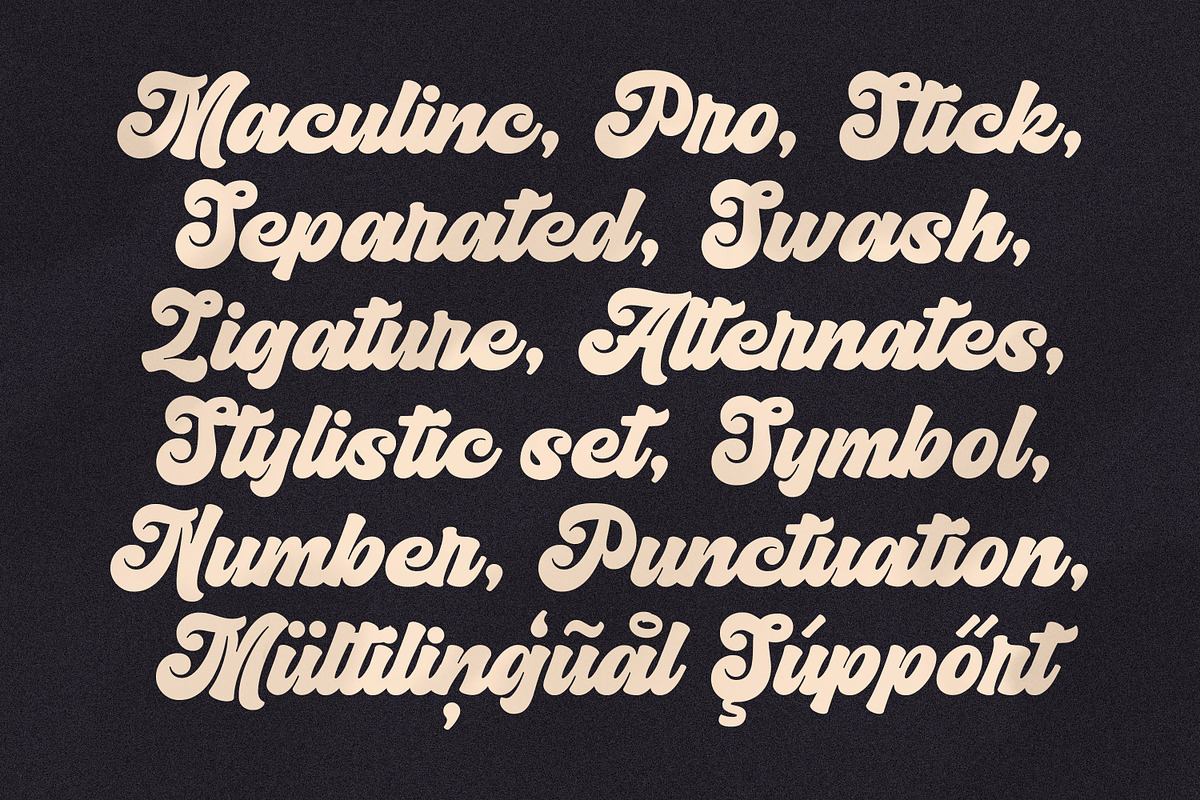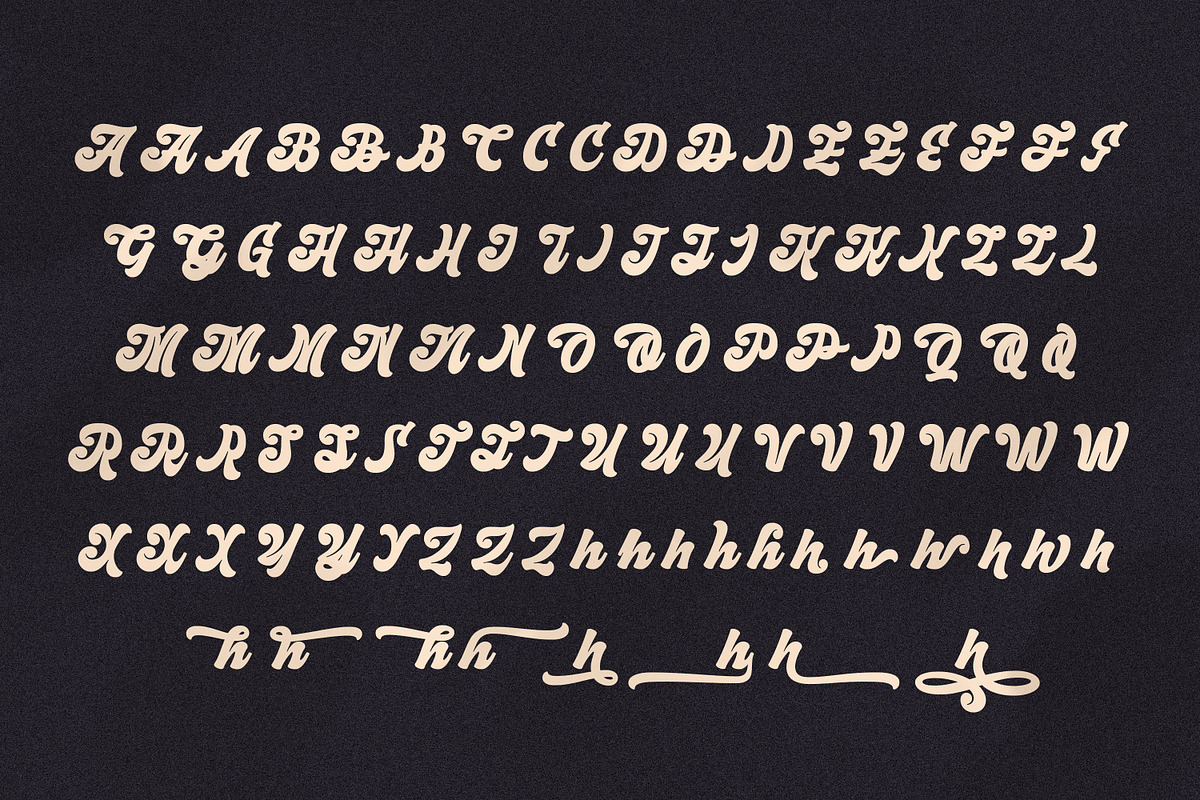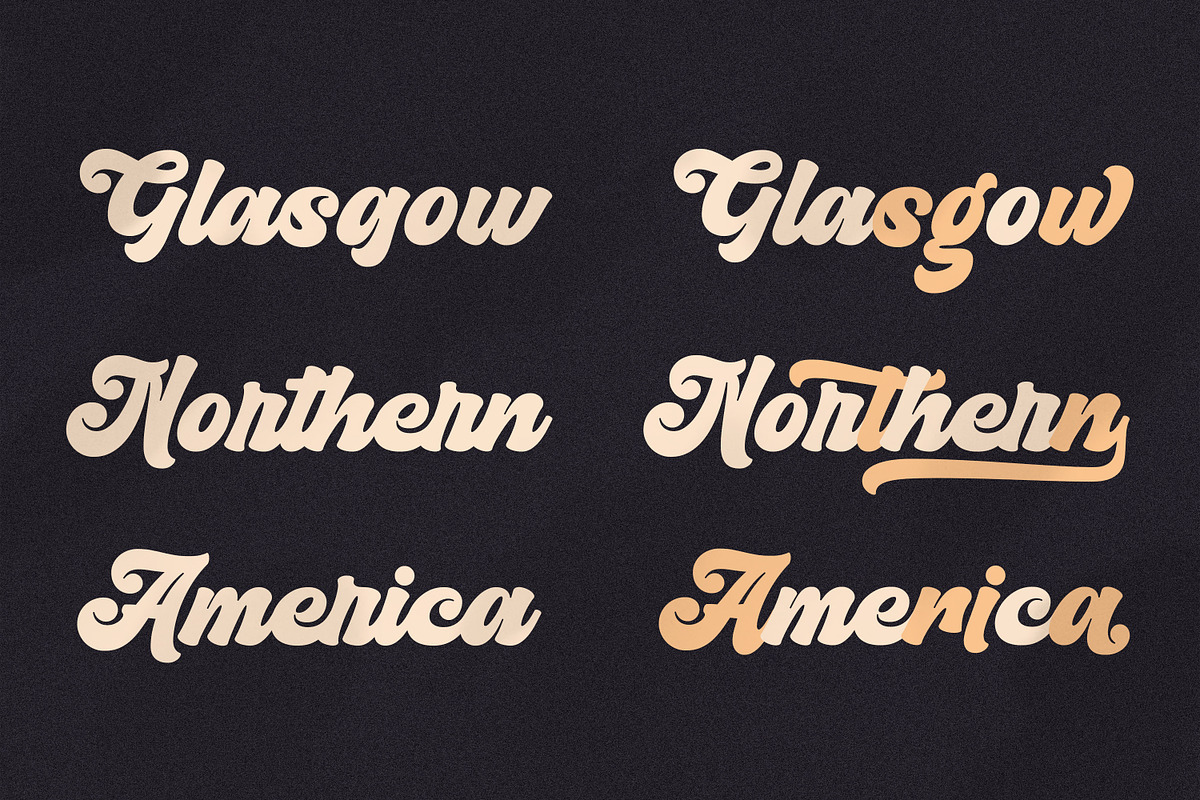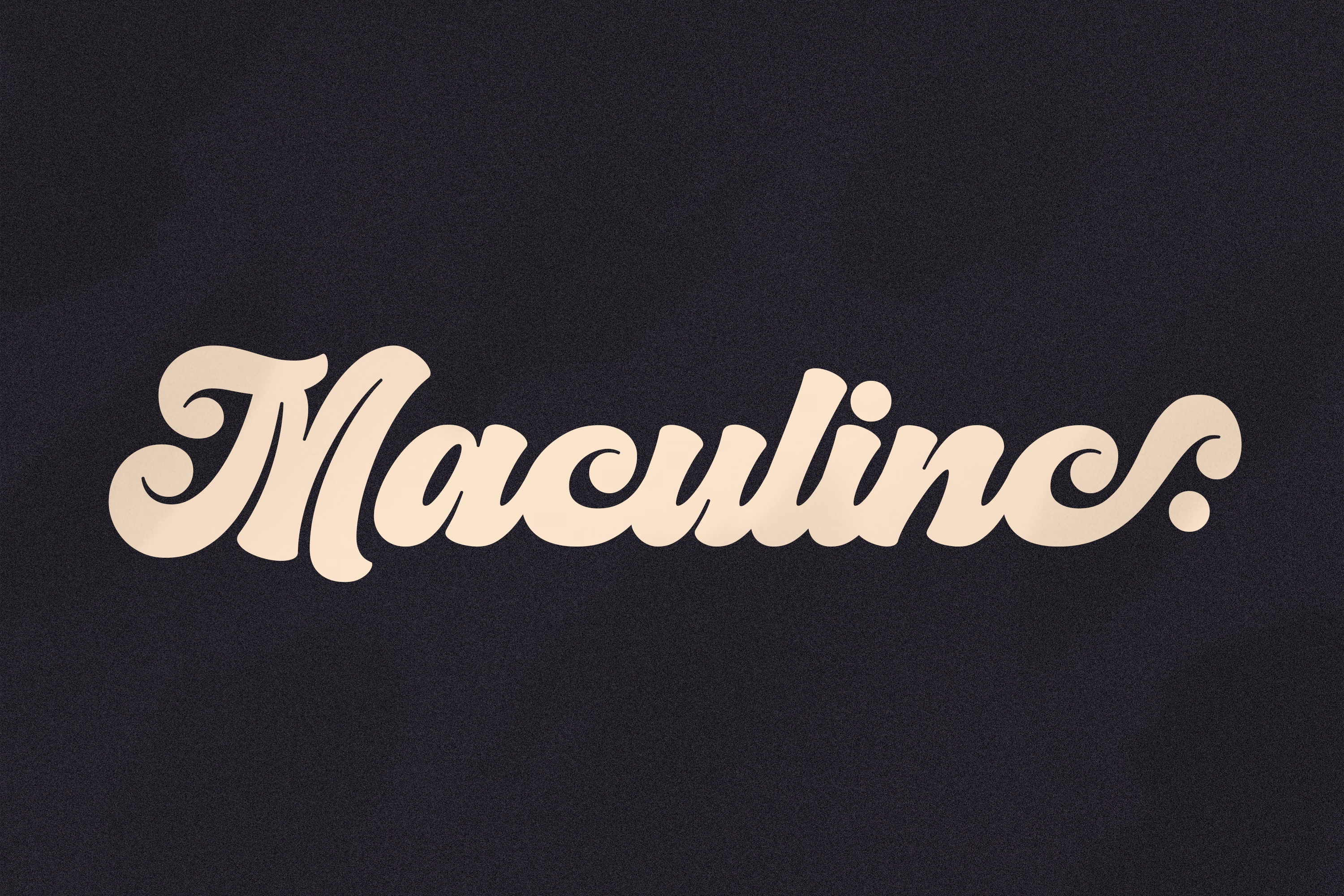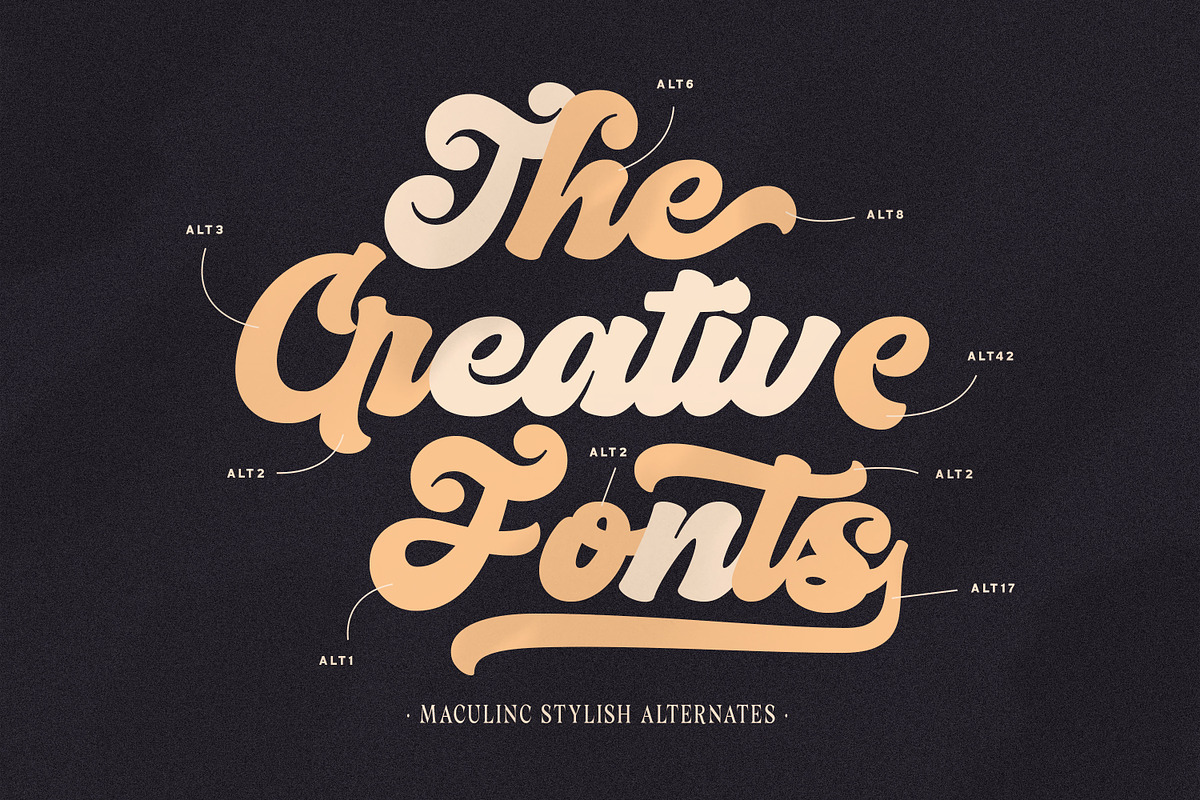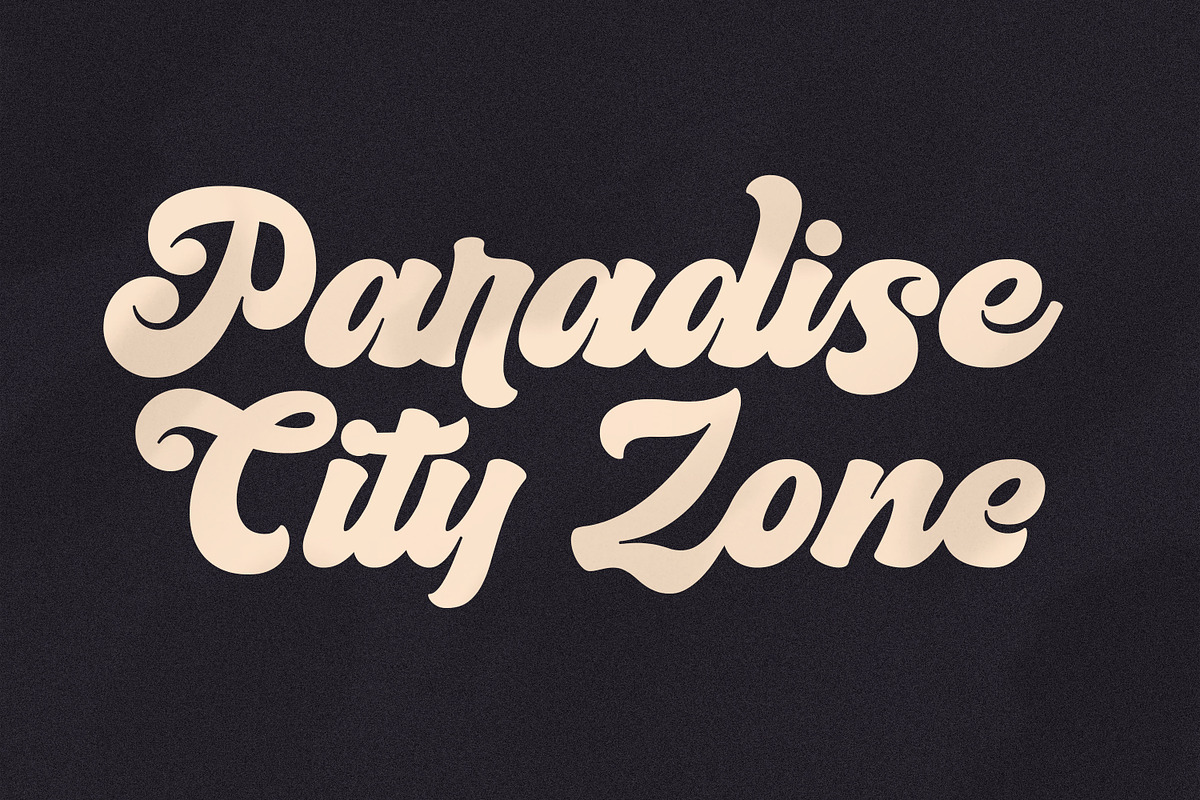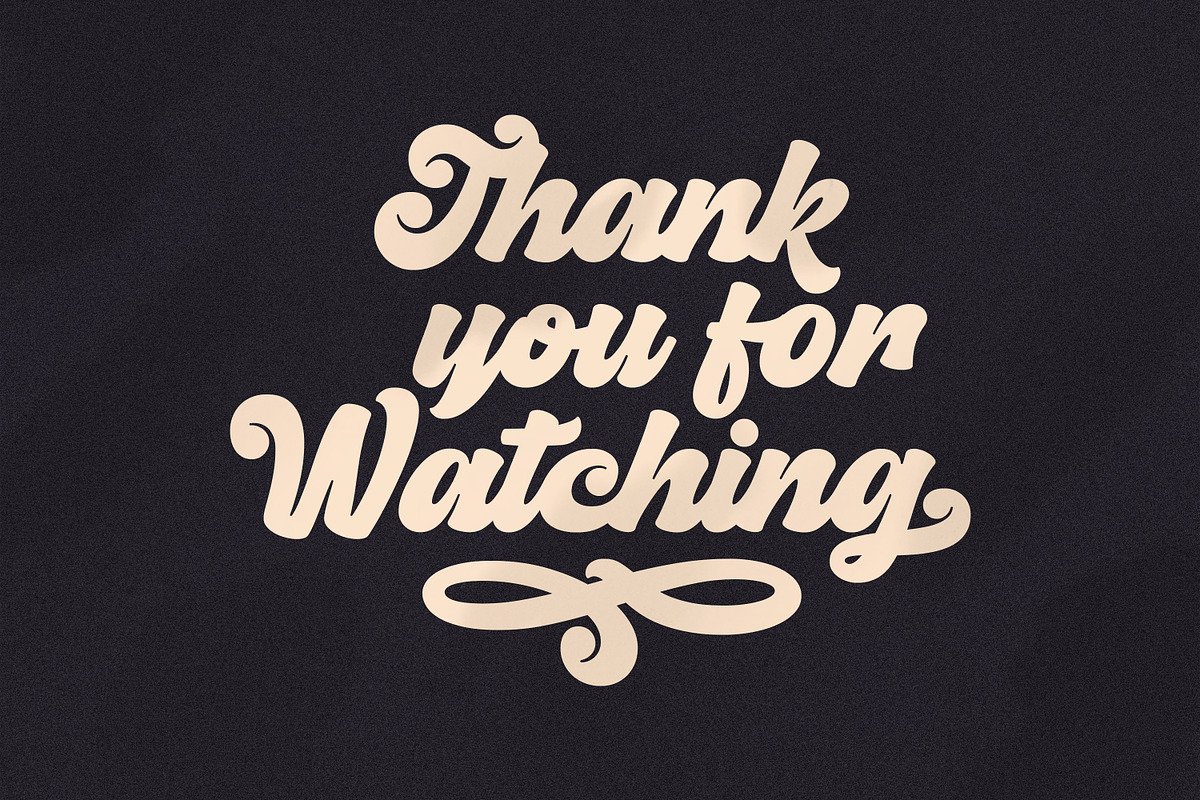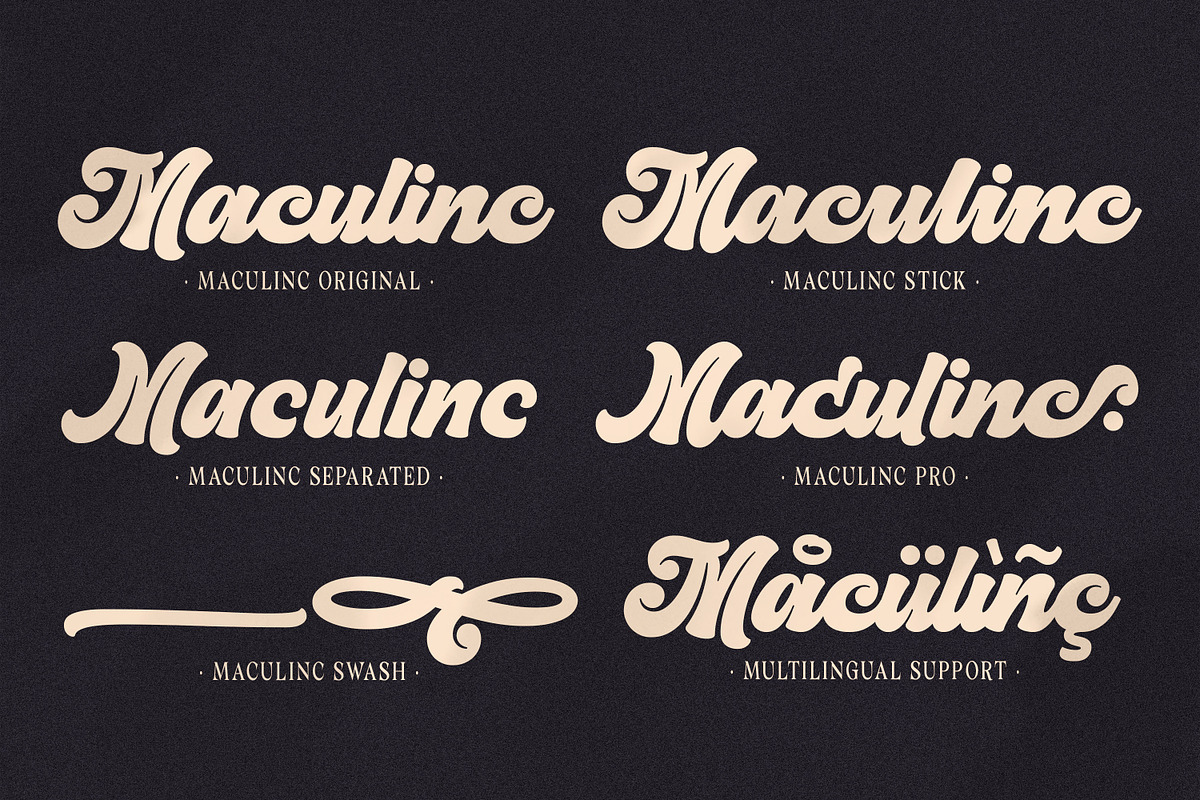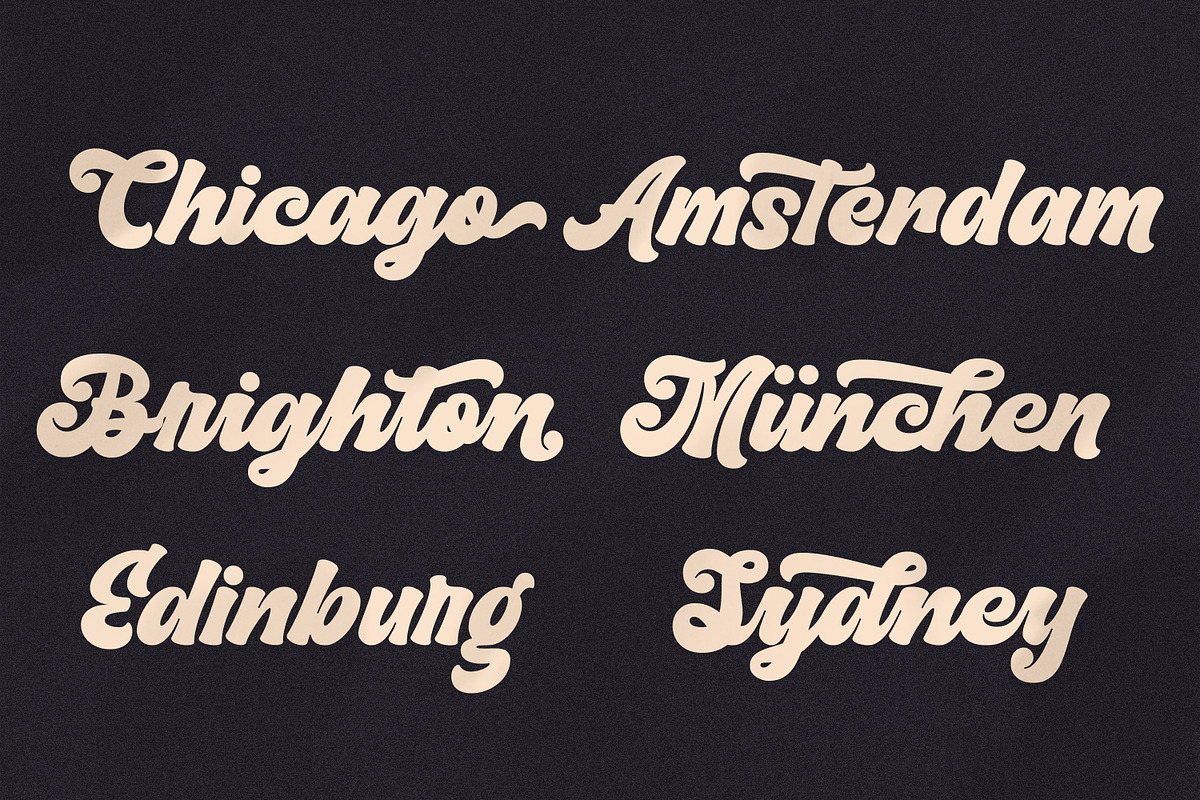
Maculinc | Script Fonts
We present Maculinc Bold Script Font :) Bold script font with classic and creative style, Maculinc Script is very special because it was originally a design for our logo "Maculinc." then we decided to make it a font. We divide this font into 5 parts: Maculinc Original, Maculinc Stick, Maculinc Separated, Maculinc Pro and Maculinc Swash.
Each of these 4 fonts has ligatures and alternatives, complete with numbers, punctuation, and multilingual support, and for Maculinc Swash only swash is available. For Maculinc Pro itself is a special part of this font because it has all the letters from each existing font and many additional alternatives.
With a classic, retro touch and mixed with Maculinc Swash, this font is able to create amazing works, made to be very versatile - can be transformed into sophisticated and complex projects - or bold and daring retro designs. Such as: business cards, t-shirt designs, logos, brand names, food menus, and many more. Just choose :) Use the Typeface tester below to type your text and try it out!